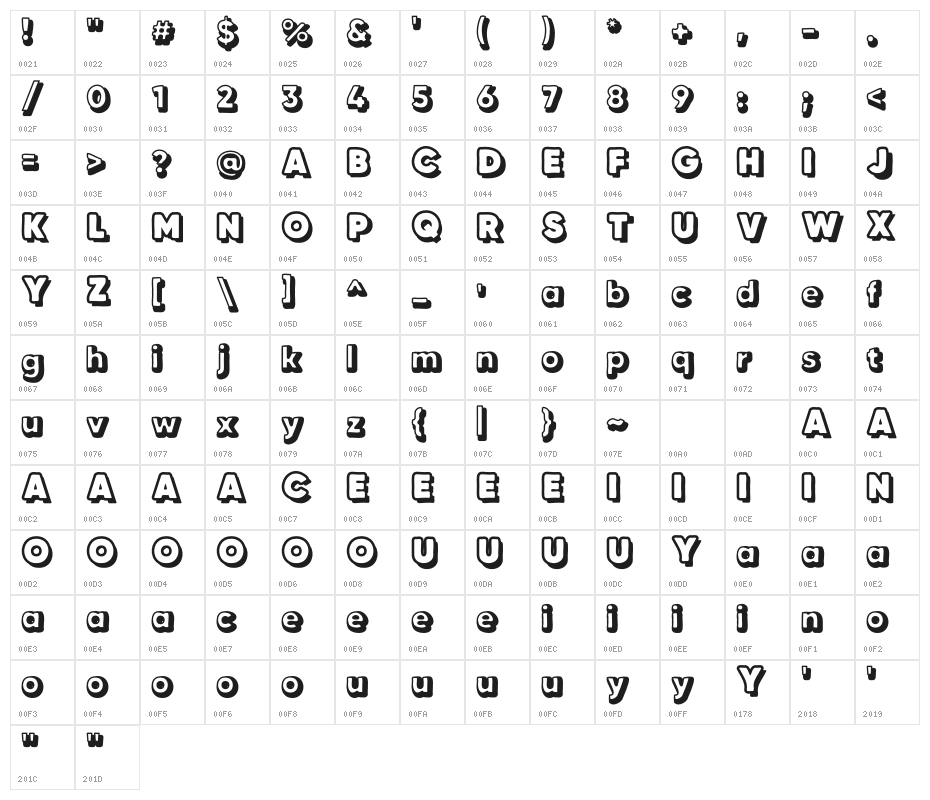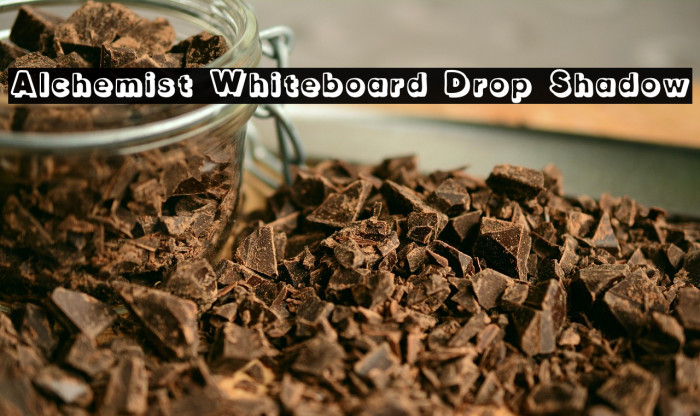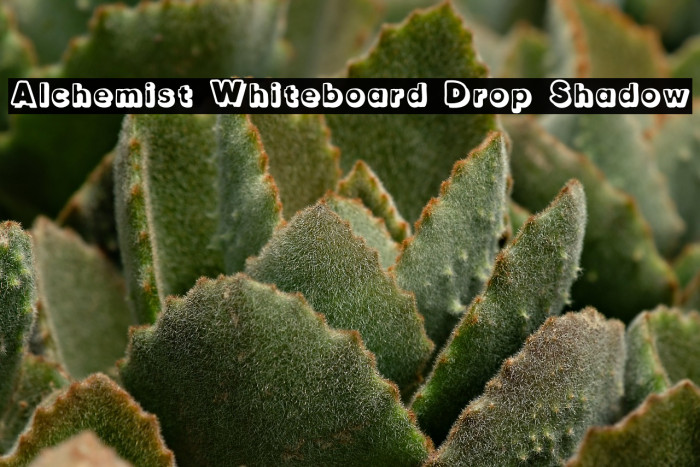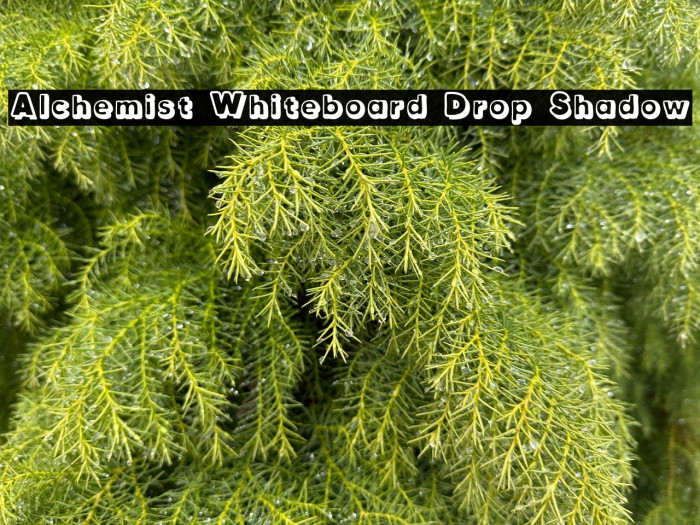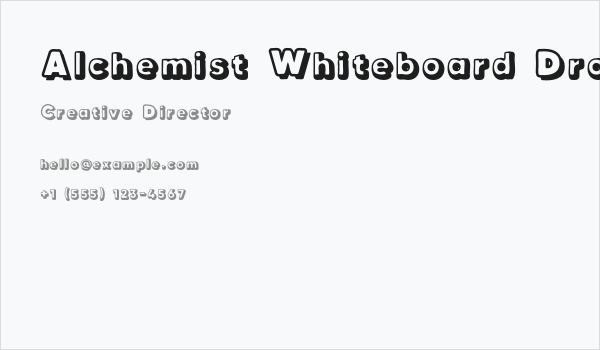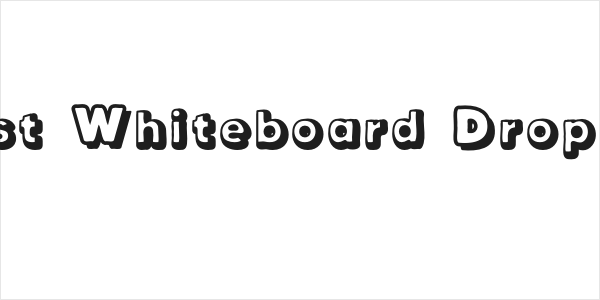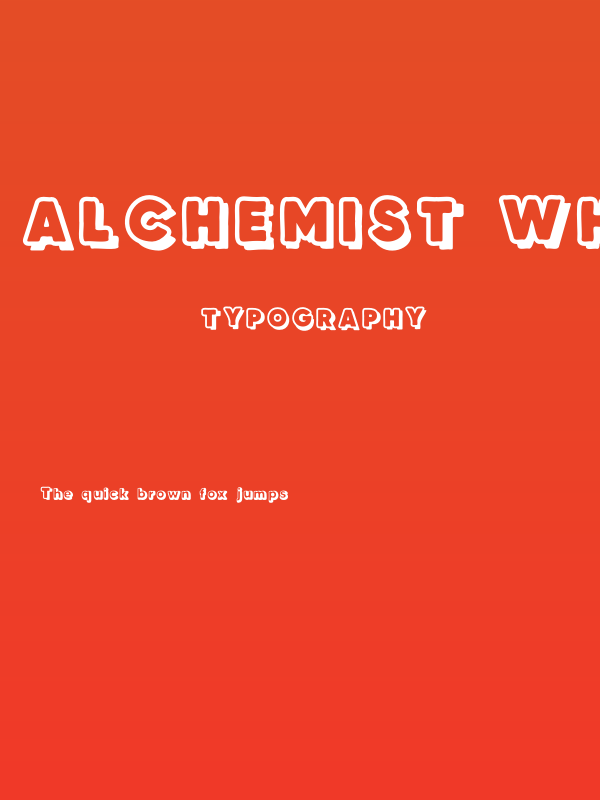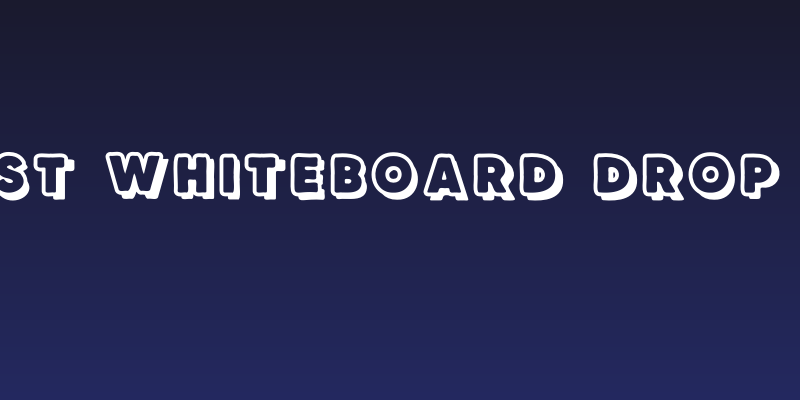
Alchemist Whiteboard Drop Shadow Font
Alchemist Whiteboard Drop Shadow Description
This font features a bold and playful design with a distinct drop shadow effect that gives it a three-dimensional appearance. The characters are rounded and thick, creating a friendly and approachable look. The drop shadow adds depth and makes the text stand out, making it ideal for attention-grabbing headlines or titles. The font maintains consistent weight and width across all characters, ensuring uniformity. Its playful style is suitable for creative projects, children's materials, or any design that requires a fun and lively touch.
| Overall Style | Playful, Decorative |
| Proposed Projects | Ideal for children's books, posters, playful branding, and creative advertisements. |